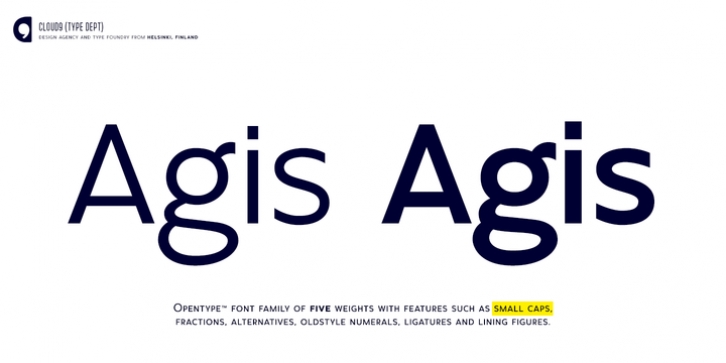
Publisher: Cloud9 Type Dept
Agis is a modern geometric sans-serif family by Cloud9 Type Dept’s Jani Paavola. The whole family consists of 5 weights from ExtraLight to Bold. The range of styles provides legit options for title, headline and body text. Suitable for branding of any form.
Agis fonts have an extended character set to support Central and Eastern European as well as Western European languages, as well as OpenType features such as small caps, fractions, oldstyle numerals and ligatures.